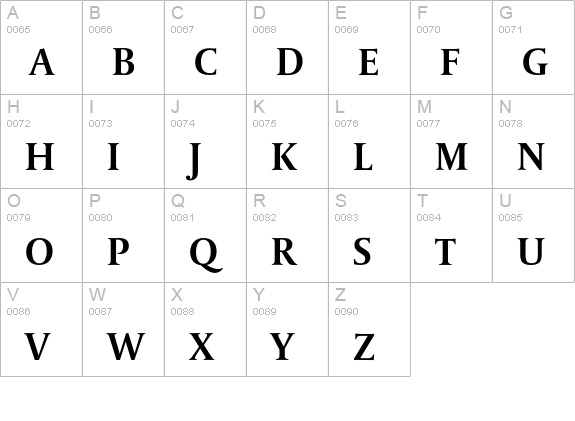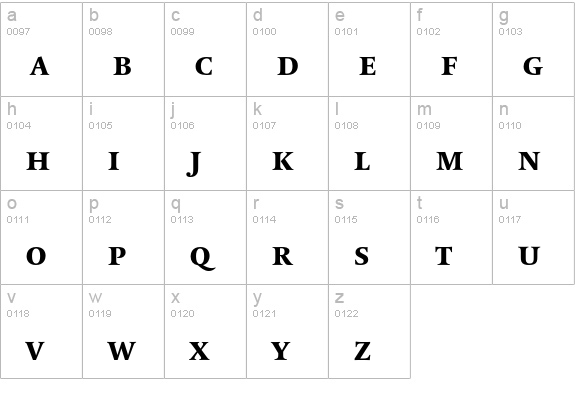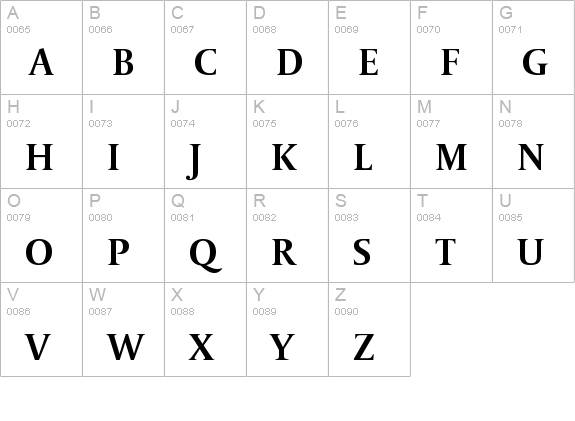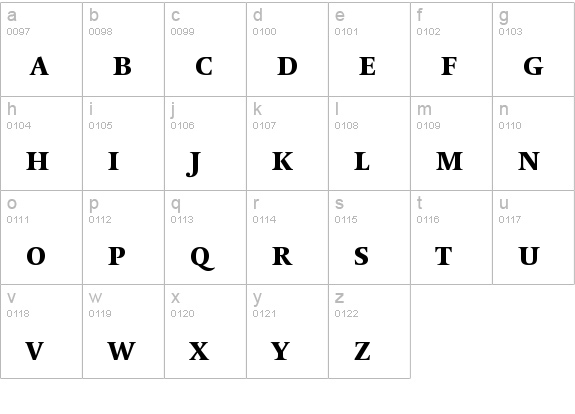
DTLParadoxTCaps-Bold Font Details
DTLParadoxTCaps-Bold is a strong, high-contrast variant in the DTLParadoxTCaps typeface family \xE2\x80\x94 well suited to headlines, attention-grabbing titles, and strong calls-to-action.
DTLParadoxTCaps-Bold font is a bold and eye-catching typeface that exudes a sense of modernity and sophistication. Its unique design features sharp angles and geometric shapes, making it perfect for headlines, logos, and other design projects that require a strong and impactful look. The clean lines and distinct letterforms of this font make it both versatile and stylish, allowing it to stand out in any design setting. Best of all, DTLParadoxTCaps-Bold font is available for free download at FontsMarket.com, making it easily accessible to designers and creatives looking to add a touch of boldness to their projects. Don't miss out on the opportunity to enhance your designs with this striking and versatile typeface that is sure to make a statement.